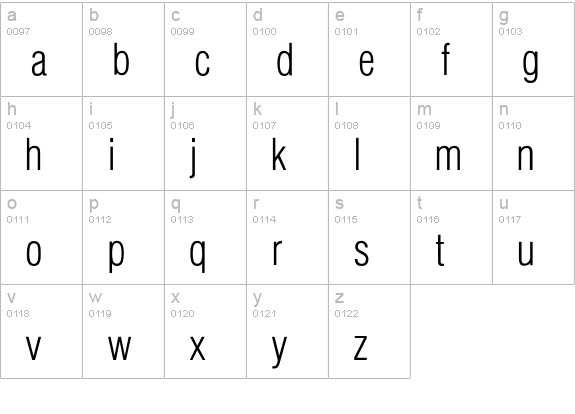
HallmarkeCondLight Font Details
Introducing HallmarkeCondLight, a captivating and versatile font that combines elegance with modernity. This font exudes sophistication and professionalism, making it perfect for a wide range of design projects. With its sleek and streamlined letterforms, HallmarkeCondLight adds a touch of refinement to any text. Its tall and slender characters create a sense of elegance and grace, while the condensed letter spacing ensures clarity and readability even at smaller sizes. Designed with meticulous attention to detail, HallmarkeCondLight offers a harmonious balance between thin strokes and sturdy letter structures. This delicate yet robust typography is ideal for branding, editorial design, packaging, and much more. One of the best features of HallmarkeCondLight is that it is available for free! Yes, you read that right – this stunning font can be freely downloaded at FontsMarket.com. You can now enhance your projects with this exceptional typeface without spending a penny. Whether you are a graphic designer, a web developer, or simply someone who appreciates the beauty of typography, HallmarkeCondLight is a must-have font in your collection. Its timeless appeal and versatility will elevate your designs and leave a lasting impression on your audience. So why wait? Download HallmarkeCondLight now at FontsMarket.com and experience the seamless blend of elegance and modernity that this font has to offer. Unleash your creativity and let HallmarkeCondLight transform your design projects into visual masterpieces.